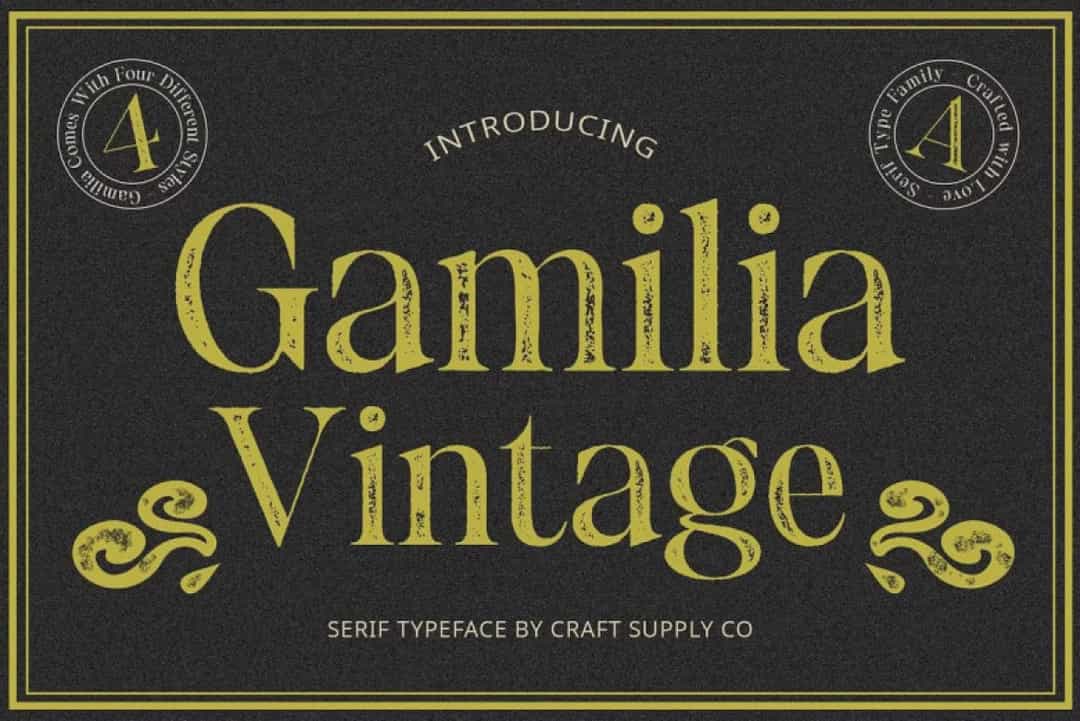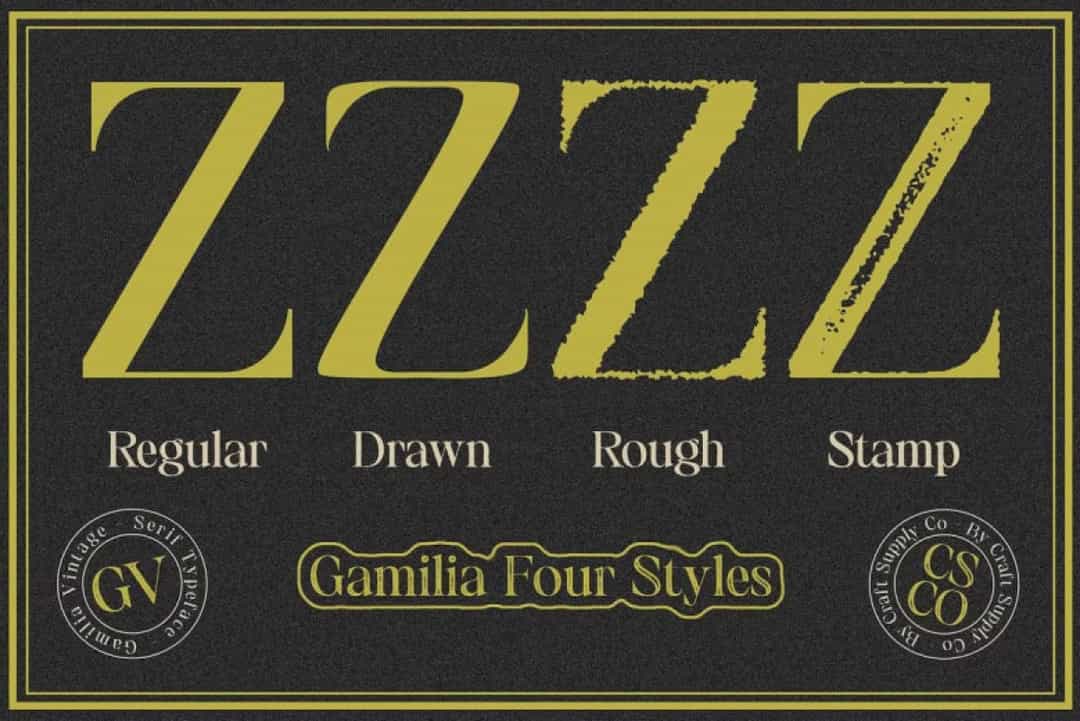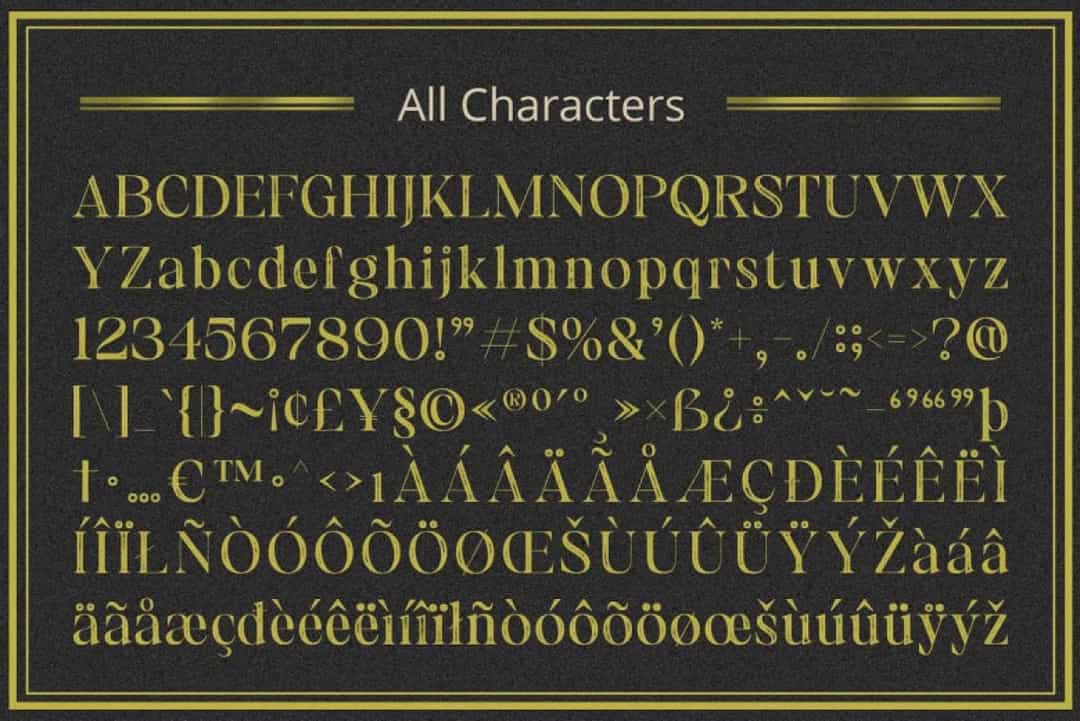
Gamilia Vintage, an elegant serif display font, captures the nostalgia of days gone by by taking you back in time. Time-tested Serif Charm This font’s design pays homage to traditional typography while adding timeless appeal and charm to your design. Gamilia Vintage strikes a balance between vintage ambiance and contemporary approaches to design that makes it suitable for modern interiors.